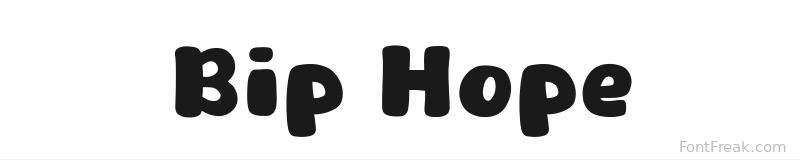
Bip Hope
About Bip Hope
Bip Hope is a distinctive display font designed by Syaf Rizal, characterized by its playful and modern aesthetic. This font belongs to the sans-serif category, making it versatile and approachable for a variety of design projects. One of its most notable visual traits is its rounded letterforms, which convey a sense of friendliness and warmth. The stroke weight is relatively consistent, with slight variations that add a touch of dynamism to the overall appearance. The spacing between characters is well-balanced, ensuring readability while maintaining a contemporary look.
This font is particularly well-suited for a range of creative applications. Its cheerful and inviting style makes it an excellent choice for wedding invitations, where it can add a personal touch to the celebration. Additionally, Bip Hope works beautifully on movie posters, capturing attention with its unique flair. Restaurant menus can also benefit from this font, as it enhances the dining experience by making the menu feel more inviting and engaging. Furthermore, small business owners can leverage this font for branding purposes, helping to create a memorable logo that stands out in a crowded market.
Targeting graphic designers, small business owners, and content creators, Bip Hope serves as a versatile tool in the designer's arsenal. Its free availability as a freeware font makes it accessible for various projects, allowing creatives to experiment without financial constraints.
What sets the Bip Hope font apart is its ability to blend modern design principles with a friendly tone, making it ideal for projects that require both professionalism and approachability. Whether you're crafting a vibrant social media post or designing a brand identity, the Bip Hope font free download offers a unique solution that can elevate your work to the next level.